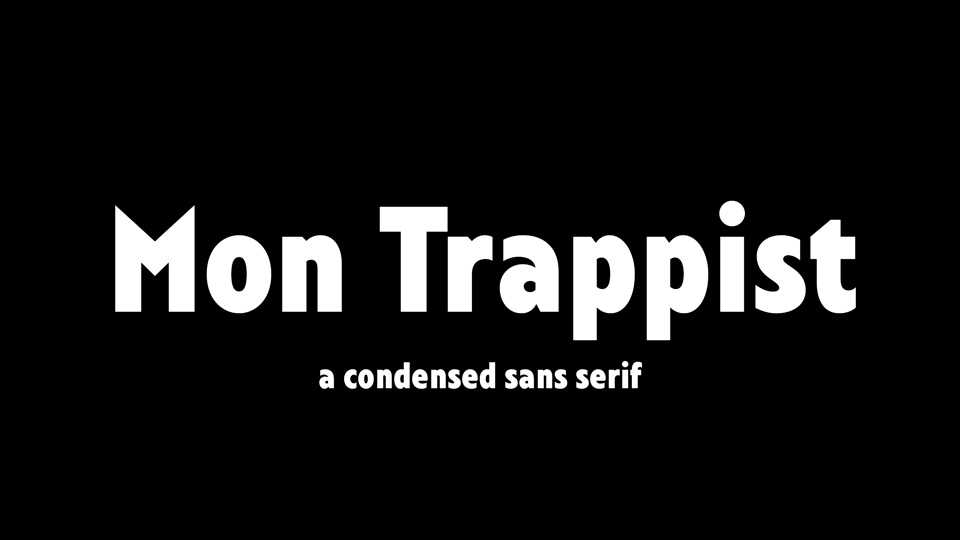
Download Mon Trappist font, a sans serif black condensed typeface dedicated to all the Belgian beers. It will help you to express deep love and genuine respect for your favourite breweries in more than 70 languages even with Cyrillic letters.
Designer: Vika Usmanova